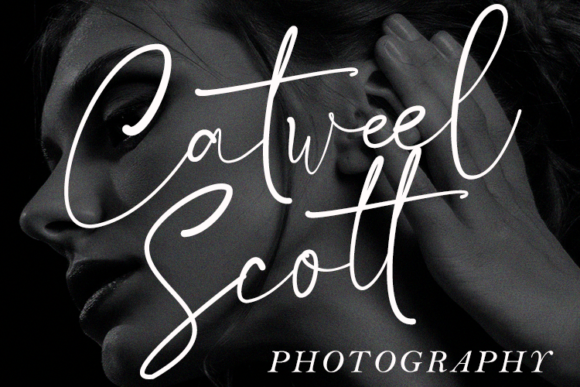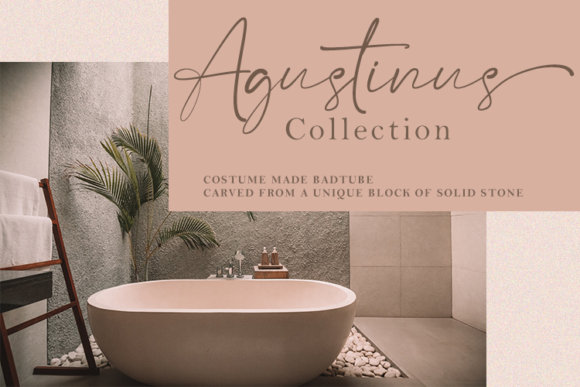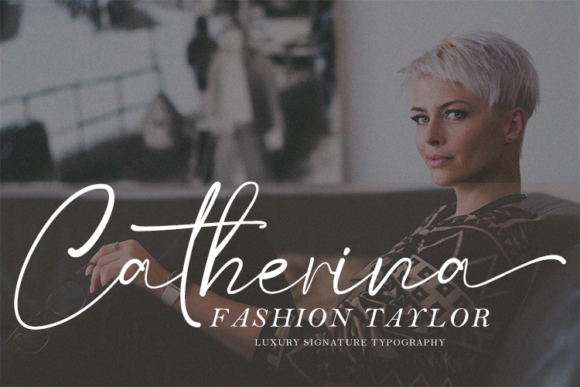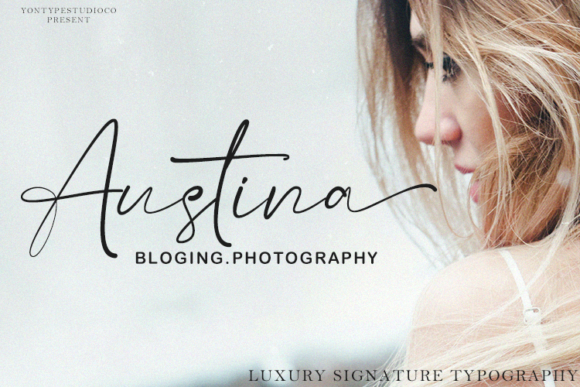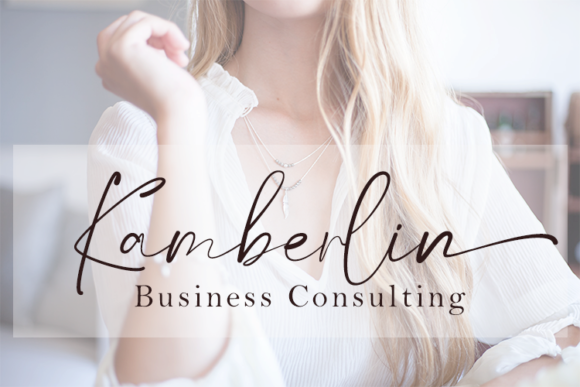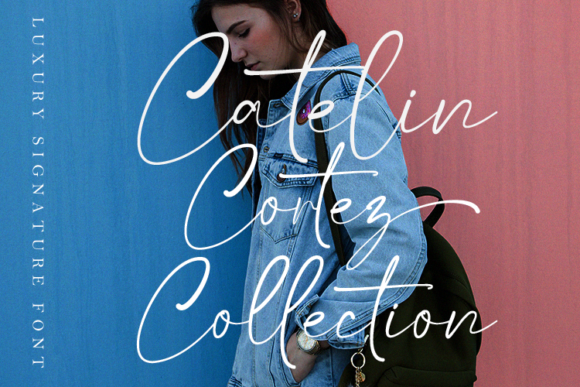
Introduction to Satteck Font
Have you ever been browsing through a beautifully designed wedding invitation, and you’re captivated by the elegant script font used? That’s exactly what happens when you come across the stunning Satteck Font. Its stylish and refined touch can elevate any design project, making it a valuable resource for designers.
As a designer, you know how crucial it is to have high-quality design resources at your fingertips. Satteck Font fits the bill perfectly, offering a free download that can be used for a wide range of creative projects, from logos and business cards to greeting cards and quotes. With its transparent background, this font is incredibly versatile and can be easily incorporated into any design, adding a touch of elegance and sophistication.
Key Features of Satteck Font
- High-quality font design, ideal for creative projects requiring a sophisticated and modern look.
- Available in a transparent background format, allowing for seamless integration into various design elements.
- Designed to be highly scalable, with a resolution of up to 300 DPI, ensuring crisp and clear text even at large sizes.
- Unique characteristics include a sleek, modern aesthetic and a wide range of language support, making it suitable for international design projects.
- Perfect for designers looking for a high-quality, free font to elevate their creative project and add a touch of sophistication.
Honest Review: Satteck Font
I recently had the opportunity to work with the Satteck Font, and I must say, it’s been a great addition to my design resource collection. The font is available for a free download, which is always a plus for designers on a budget.
One of the things that works well with the Satteck Font is its high quality and versatility. It’s perfect for a wide range of creative projects, from logos to web design, and its transparent background makes it easy to layer over other elements.
Here are some of the features that I like about the Satteck Font:
- High-quality design that’s perfect for print and digital projects
- Works well with a variety of creative projects
While the Satteck Font is a great resource, there are a few limitations to be aware of:
- Only a few styles are available, which may limit its versatility in certain projects
- Not all font styles are available in uppercase and lowercase variations
Overall, I’m impressed with the Satteck Font and would definitely recommend it to designers looking for a high-quality, free font. While it may have a few limitations, its versatility and high-quality design make it a valuable addition to any design resource collection.
Tips for Getting the Most Out of Satteck Font
Use the Satteck Font in conjunction with a high-quality image or design element to create a visually appealing design. Experiment with different font sizes and styles to add depth and interest to your design. Consider using the Satteck Font as a design resource for your creative project.
The Satteck Font is suitable for a variety of creative projects, including graphic design, digital art, and marketing materials. Its high-quality design and transparent background make it an ideal choice for designers who want to add a professional touch to their work.